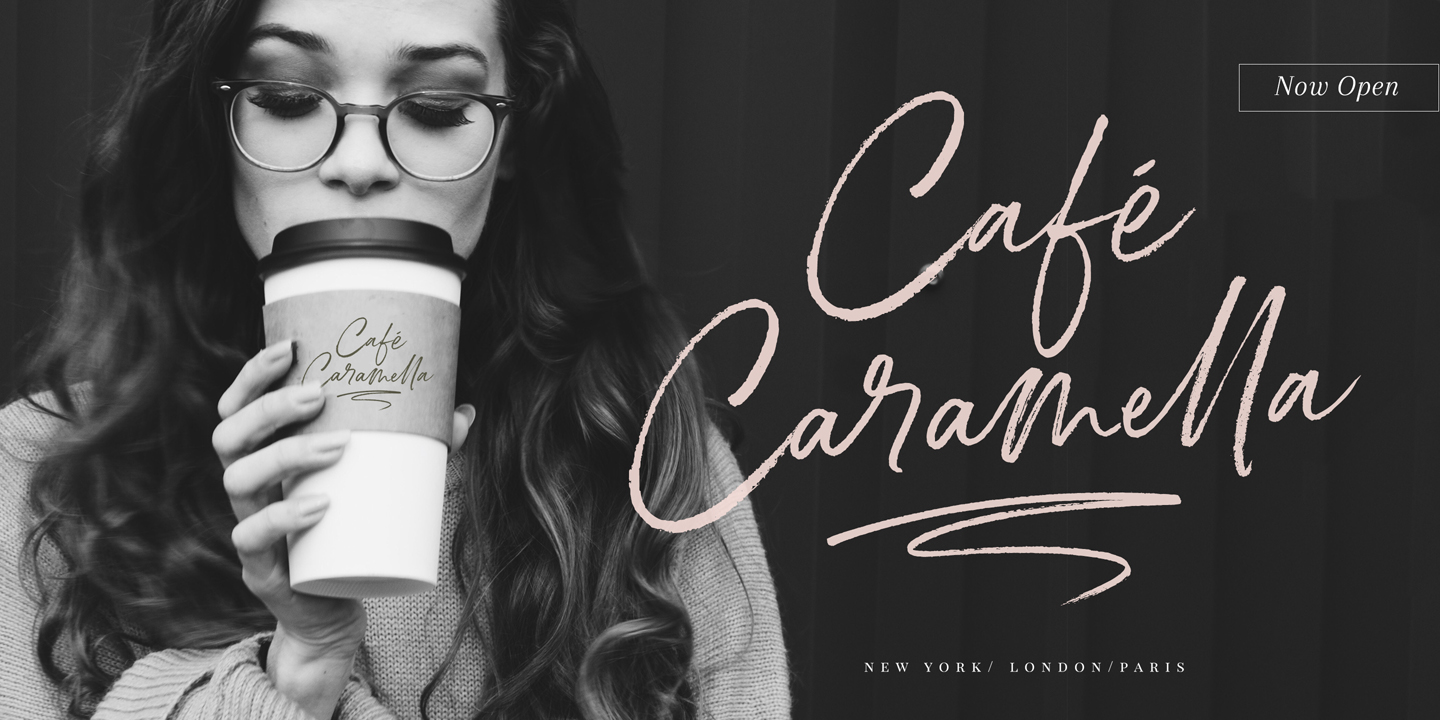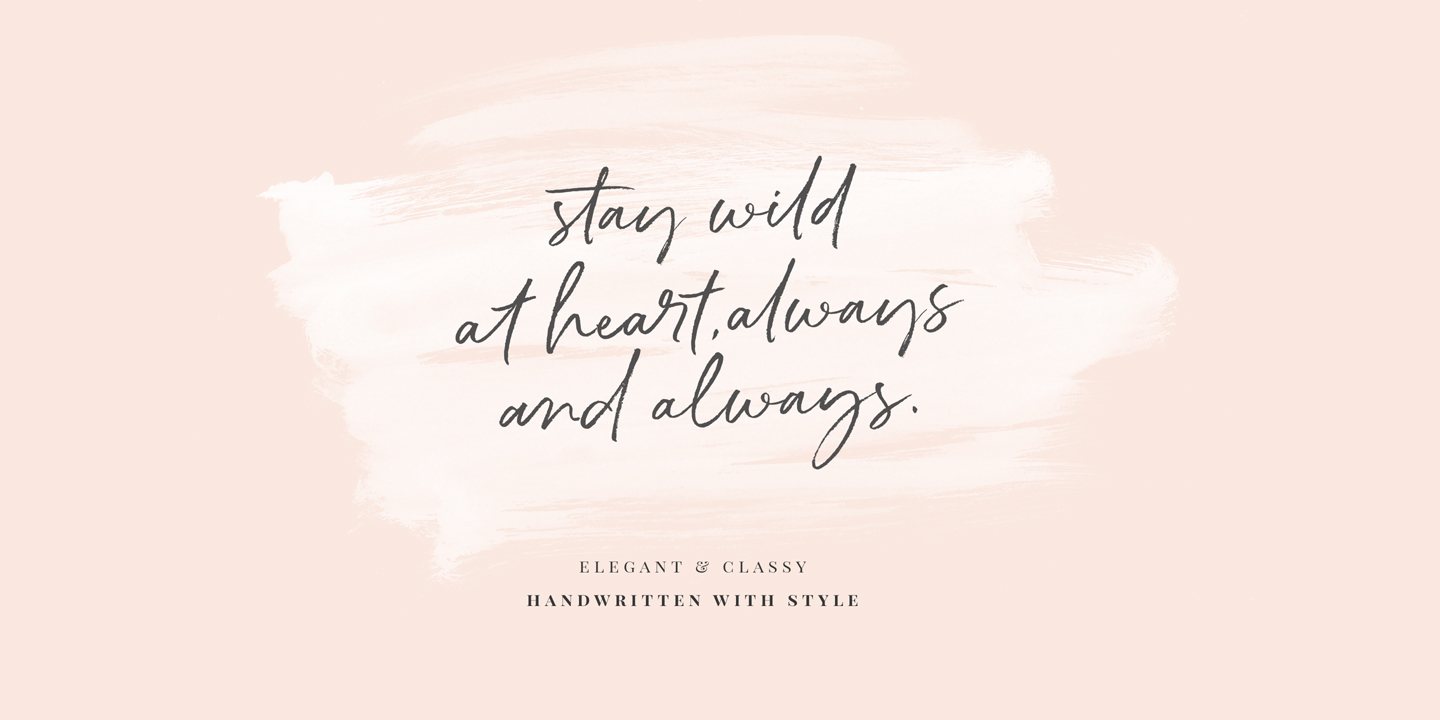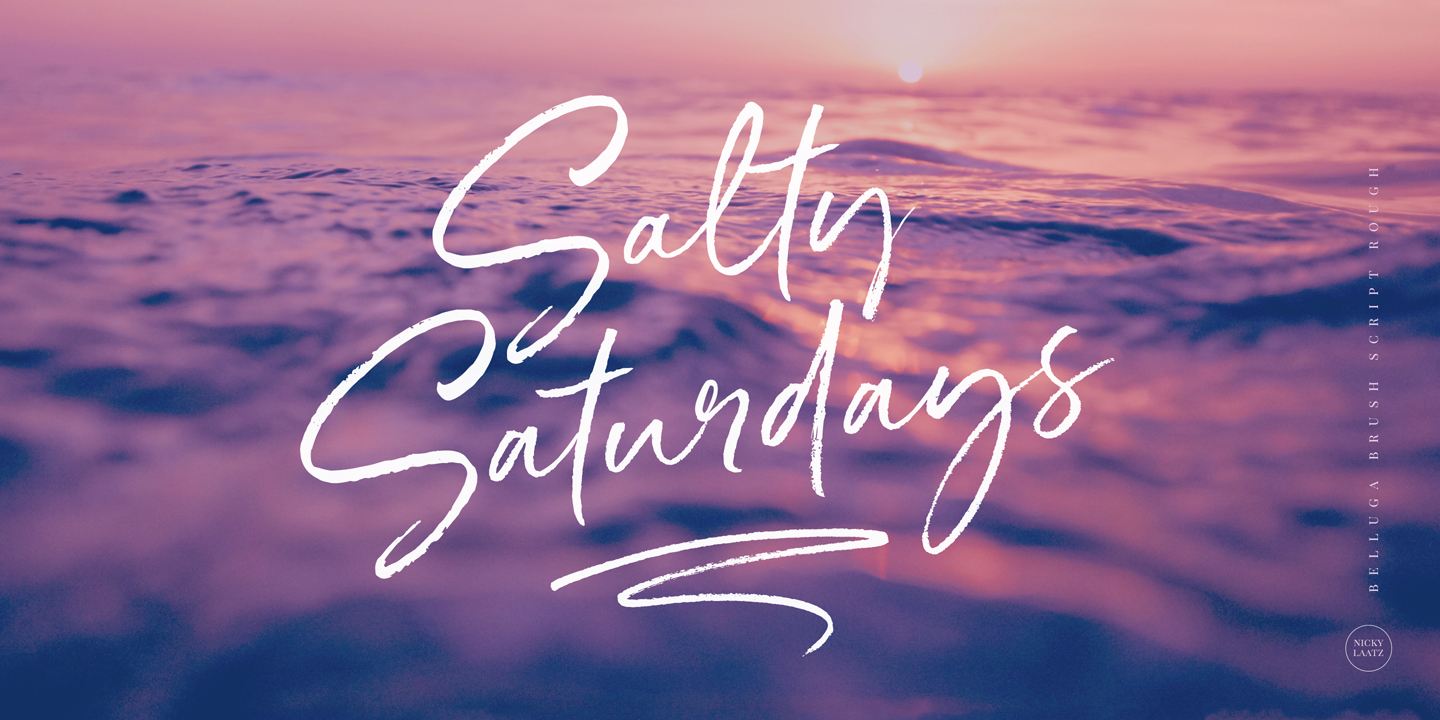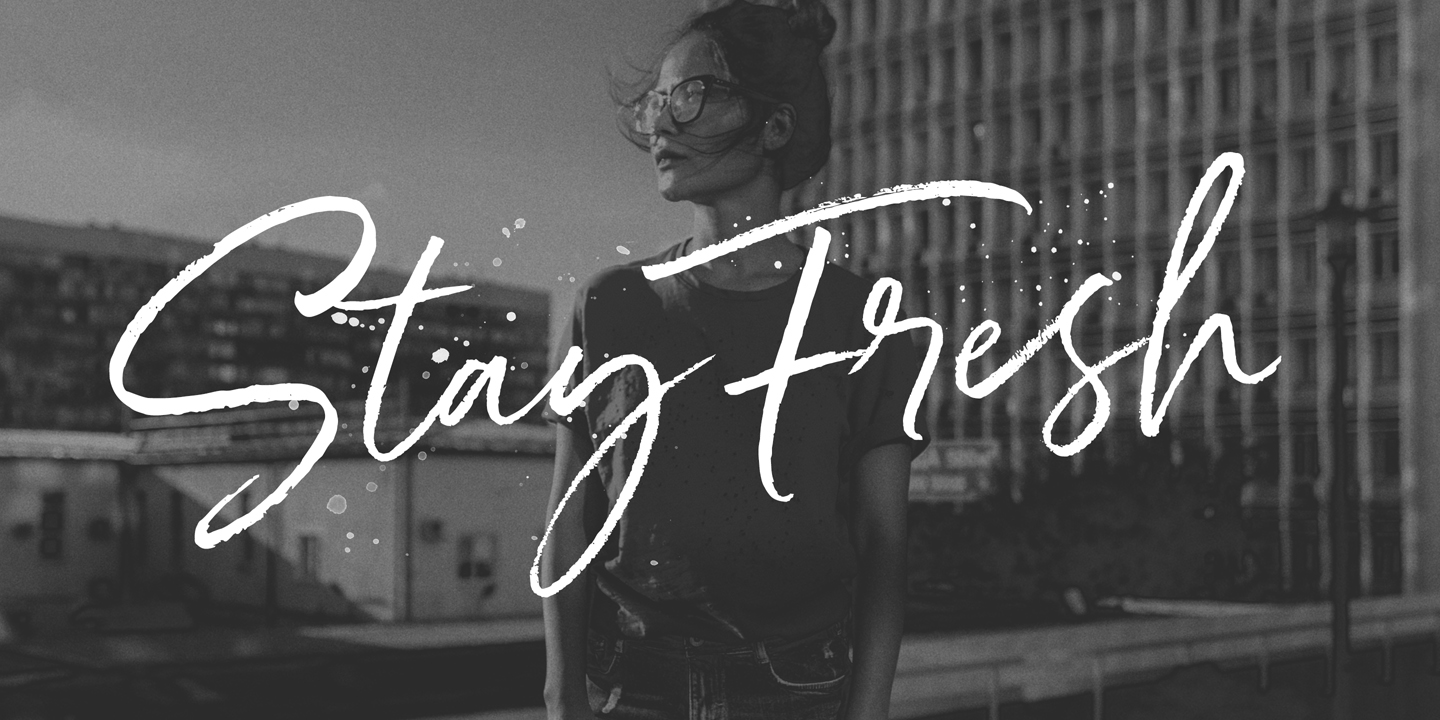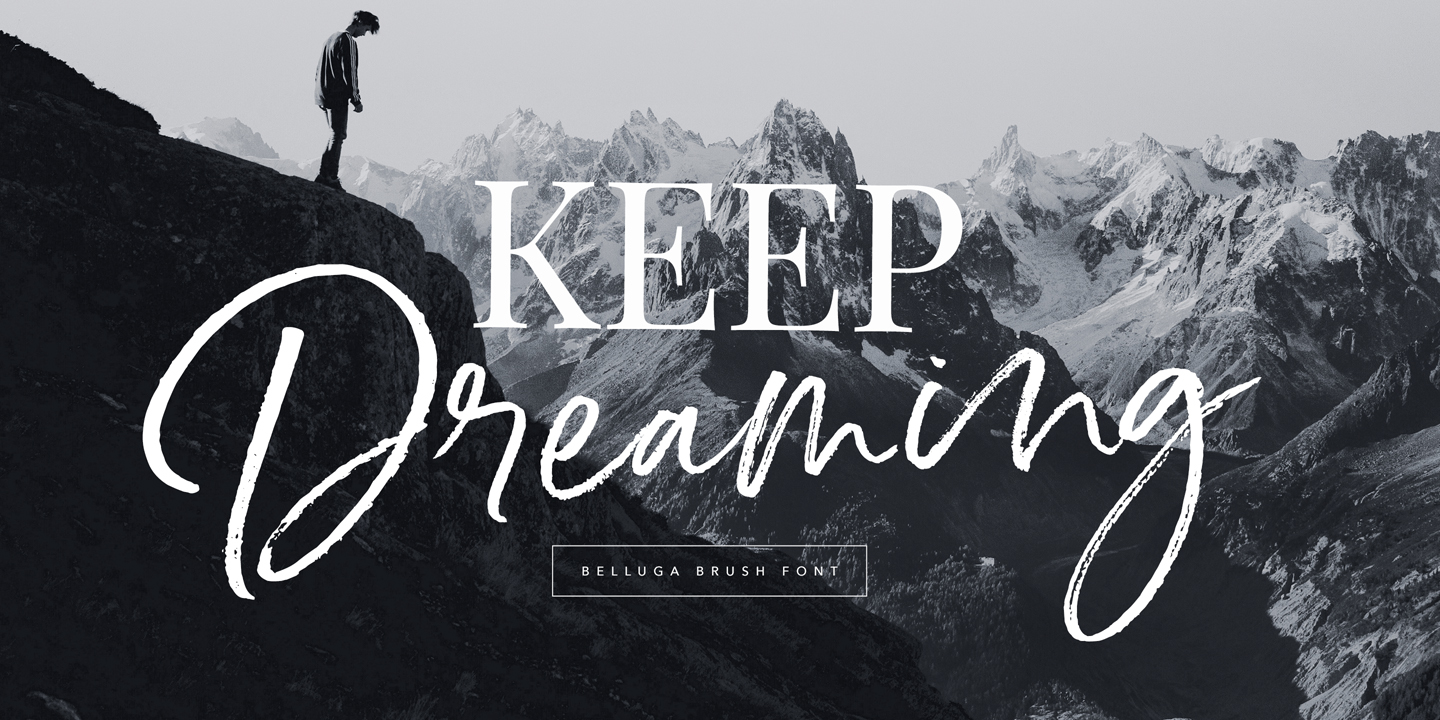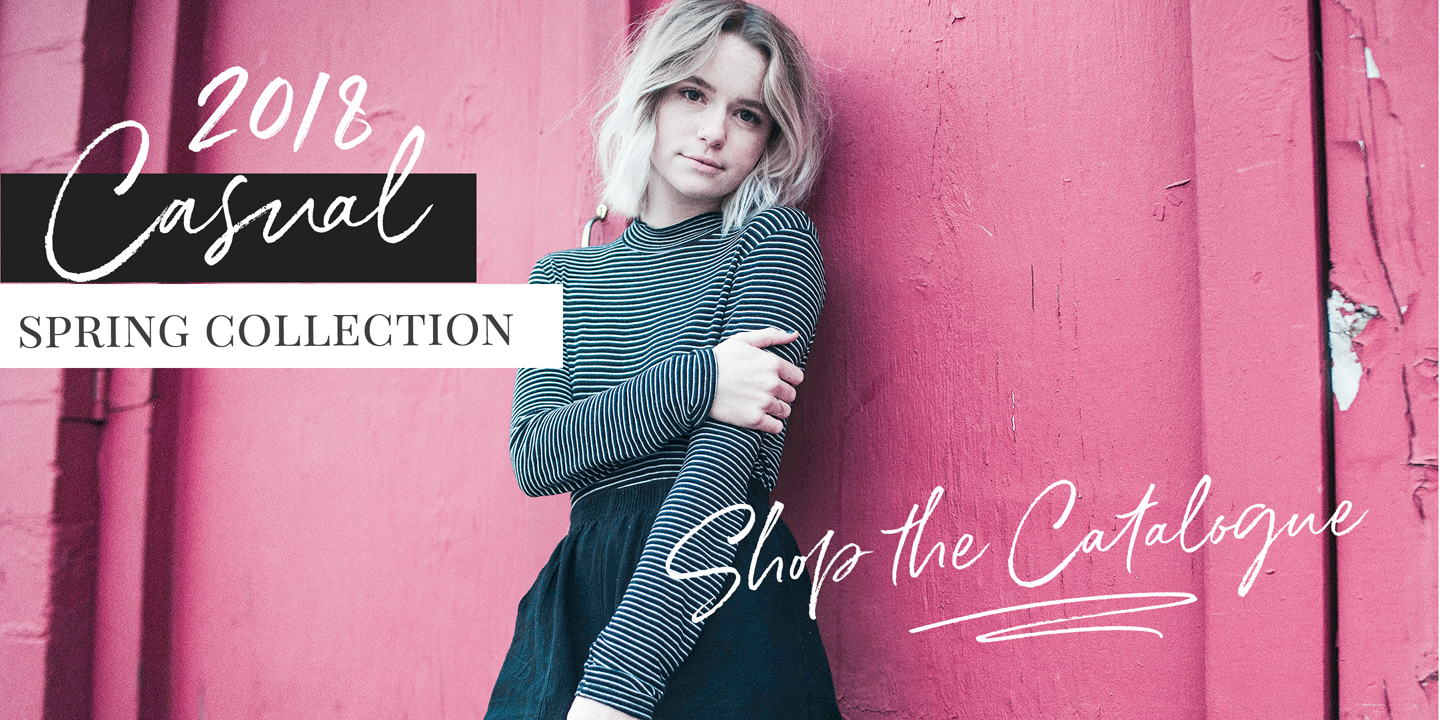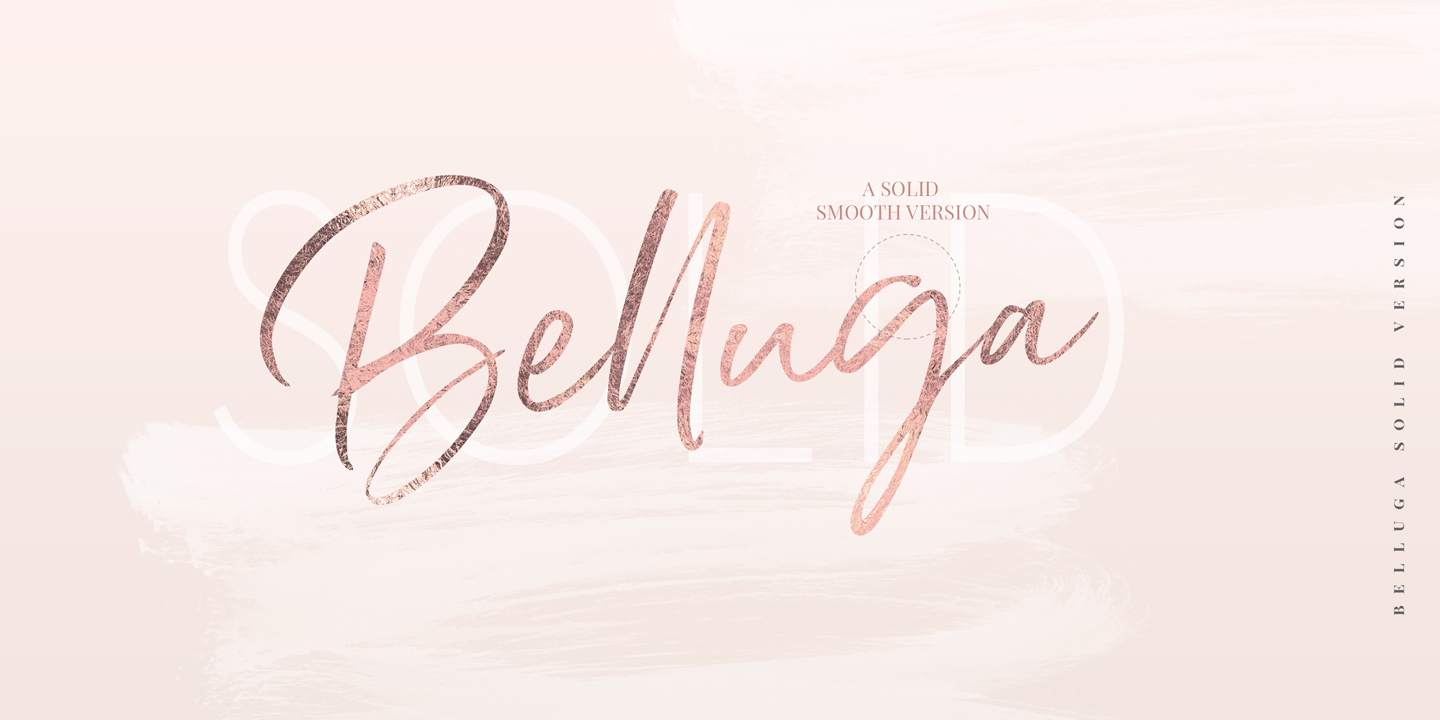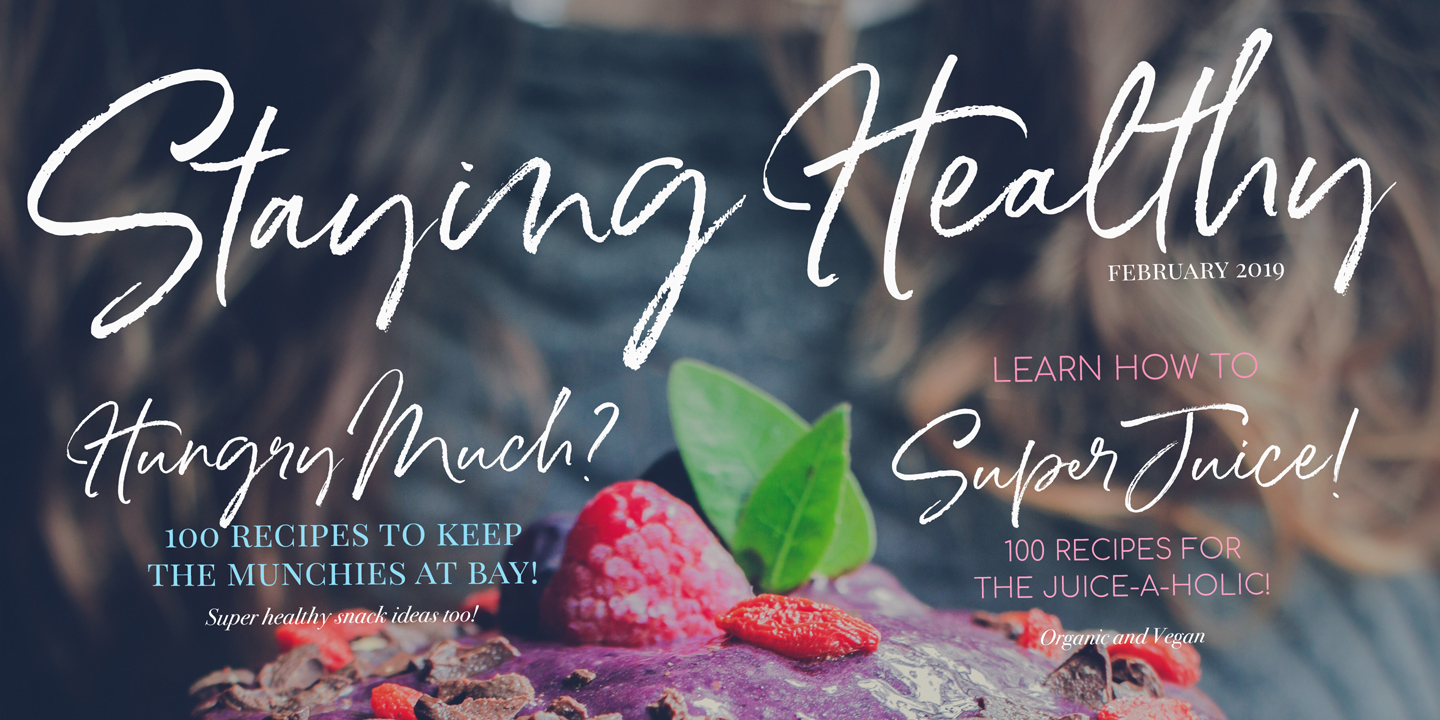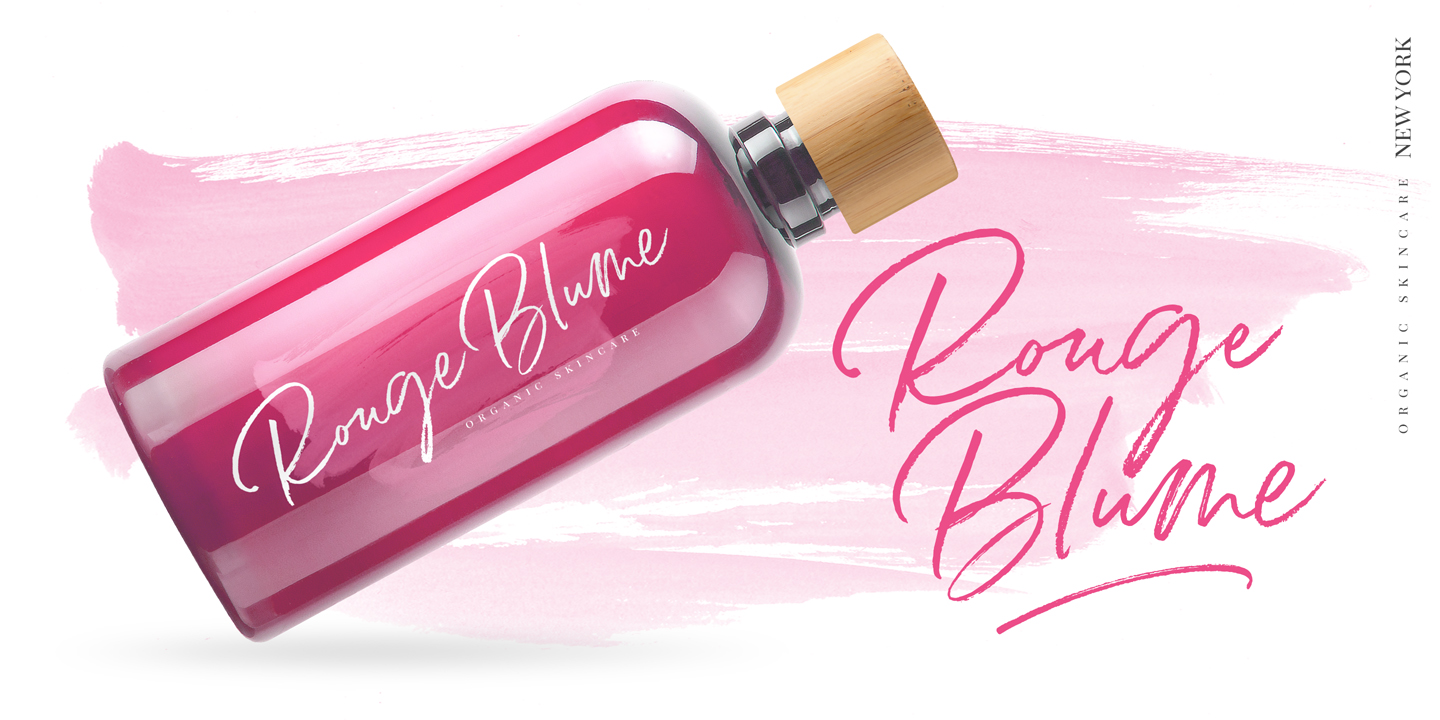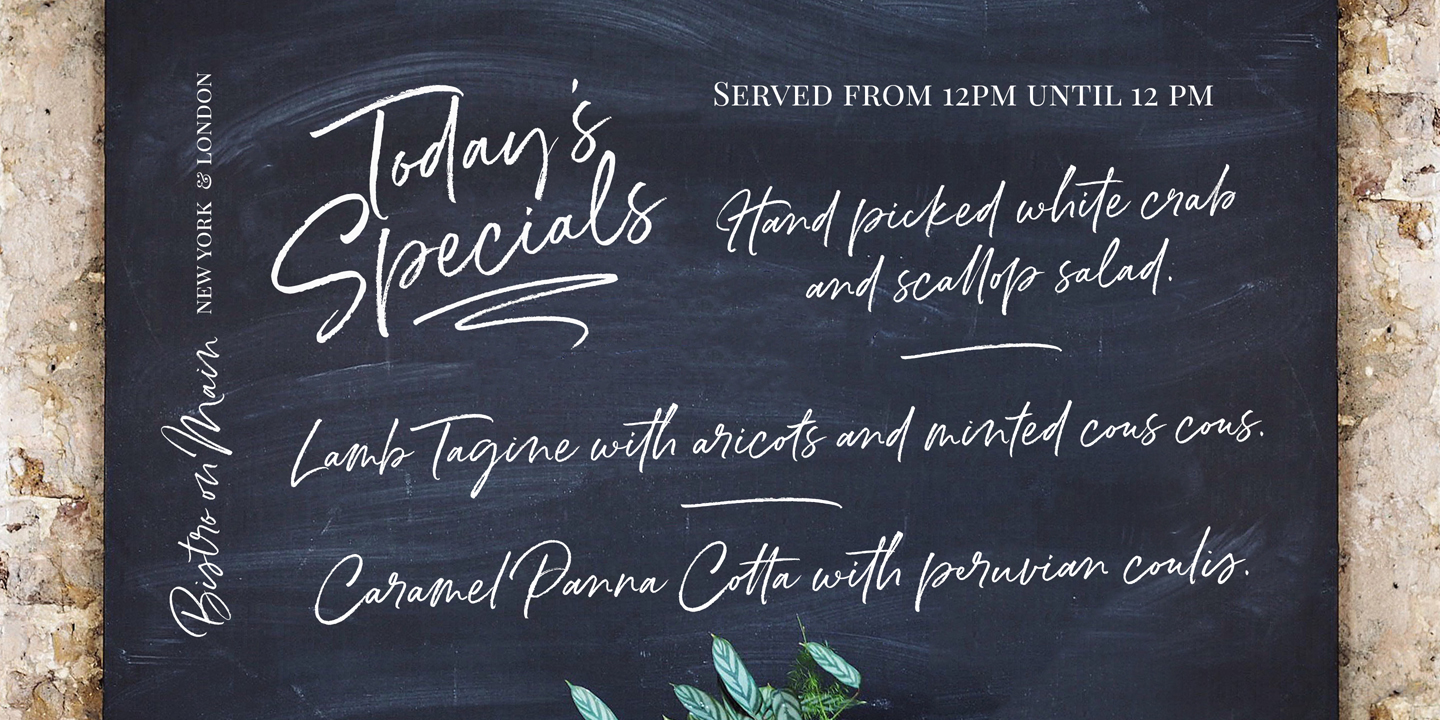
Slip into something a little more sophisticated with Belluga - A stylish, fresh new handwritten brush script. Oozing with Opentype Features, this script comes to life as if you are hand-brushing it yourself. Belluga Script was created to look as close to a natural handwritten script as possible by including over 80 natural-looking opentype ligatures, and a full set of lowercase alternates. From the Glyph Palette you’ll also find 11 swashes that can be used as underlines and for emphasis. Perfect for bold statements and sophisticated branding , Belluga helps set your designs apart by adding a custom-lettered look. A smooth , solid version of the font is also available for those who require a less textured look.